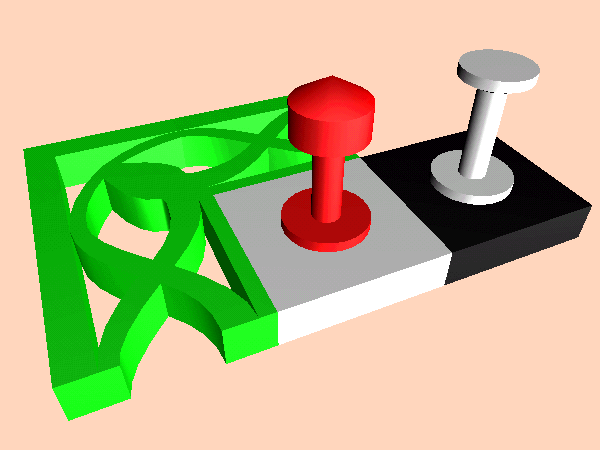
Readers interested in 3D modelling using a computer might like to know of my CHESS 3D font.
The font was designed for use with the Serif ImpactPlus program, though may possibly be of use with other 3D modelling packages depending upon whether they can form an object from a glyph in a font and, if so, whether that object can be a solid of revolution about an axis or a slab design as the user chooses.